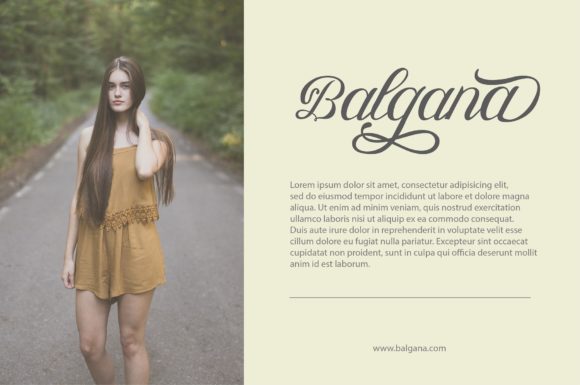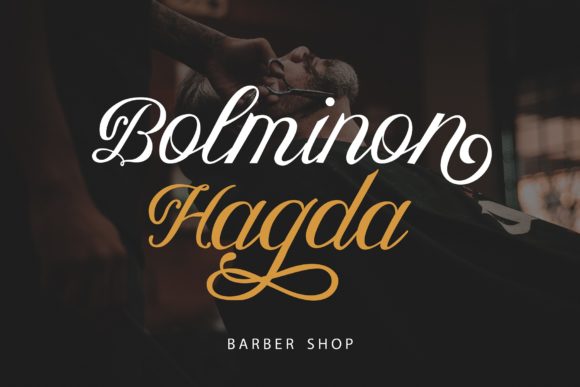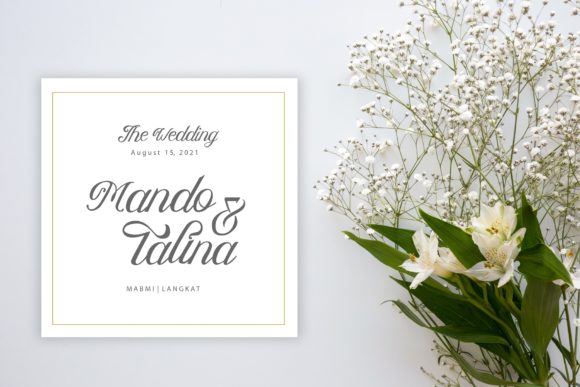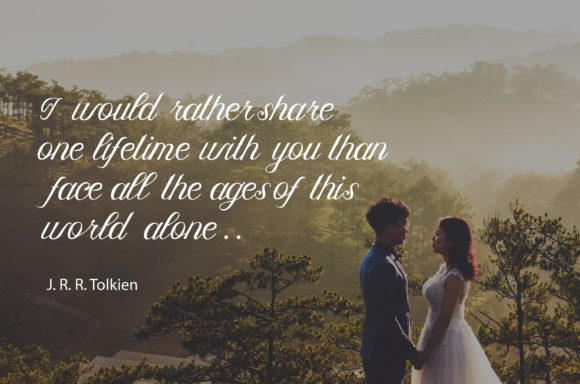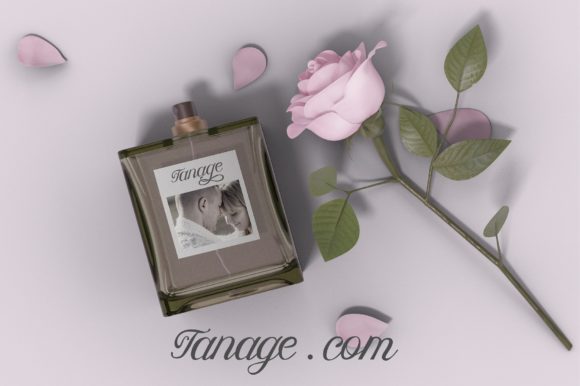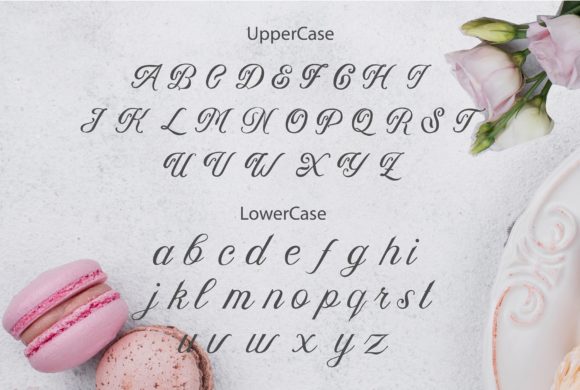
The Dalina Font: A Timeless Handwritten Treasure
I’ll never forget the time I was working on a wedding invitation project, and my client asked for a font that was ” elegant, yet playful, and totally unique.” I scoured the internet, tried out dozens of fonts, but nothing seemed quite right. That was until I stumbled upon the Dalina font. ✨ It was like a breath of fresh air – delicate, yet distinctive, with a certain je ne sais quoi that immediately captured the essence of the project.
So, what makes Dalina so special? Here are a few things that I absolutely love:
- ✅ Its delicate, handwritten charm that adds a touch of elegance to any design
- ✨ A wide range of OpenType features, including stylistic alternates and glyphs, that allow for endless customization
- 🔥 A surprisingly high level of legibility, even at smaller font sizes
- 💕 A versatile personality that works beautifully on wedding invitations, thank you cards, quotes, greeting cards, logos, business cards, and more
Of course, no font is perfect, and Dalina does have a few minor quirks:
- ⚠️ Some users may find the font a tad too delicate for certain design applications (e.g., posters or headlines)
- 🤔 Occasional issues with kerning, particularly when using all-caps or mixing with other fonts
The Story Behind Dalina
Dalina was created by a talented type designer who drew inspiration from traditional handwritten scripts and modern calligraphy. The goal was to craft a font that was both timeless and distinctive, with a unique personality that would add a touch of elegance to any design. And, judging by its popularity, it seems that Dalina has achieved just that! 😊
| Font Name | Dalina Font |
| Author | Authentic Studio |
| Is Dalina suitable for body text? | While Dalina is primarily designed for display use, it can be used for body text in certain contexts, such as short paragraphs or captions. |